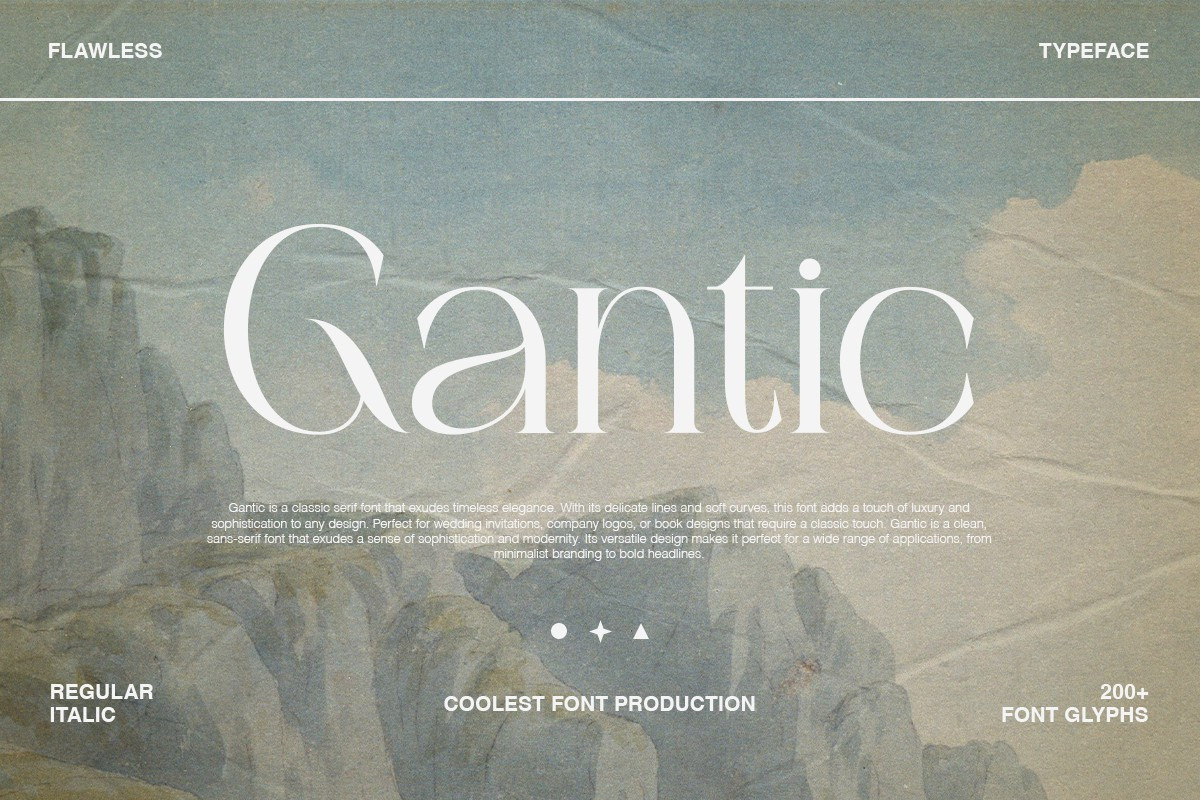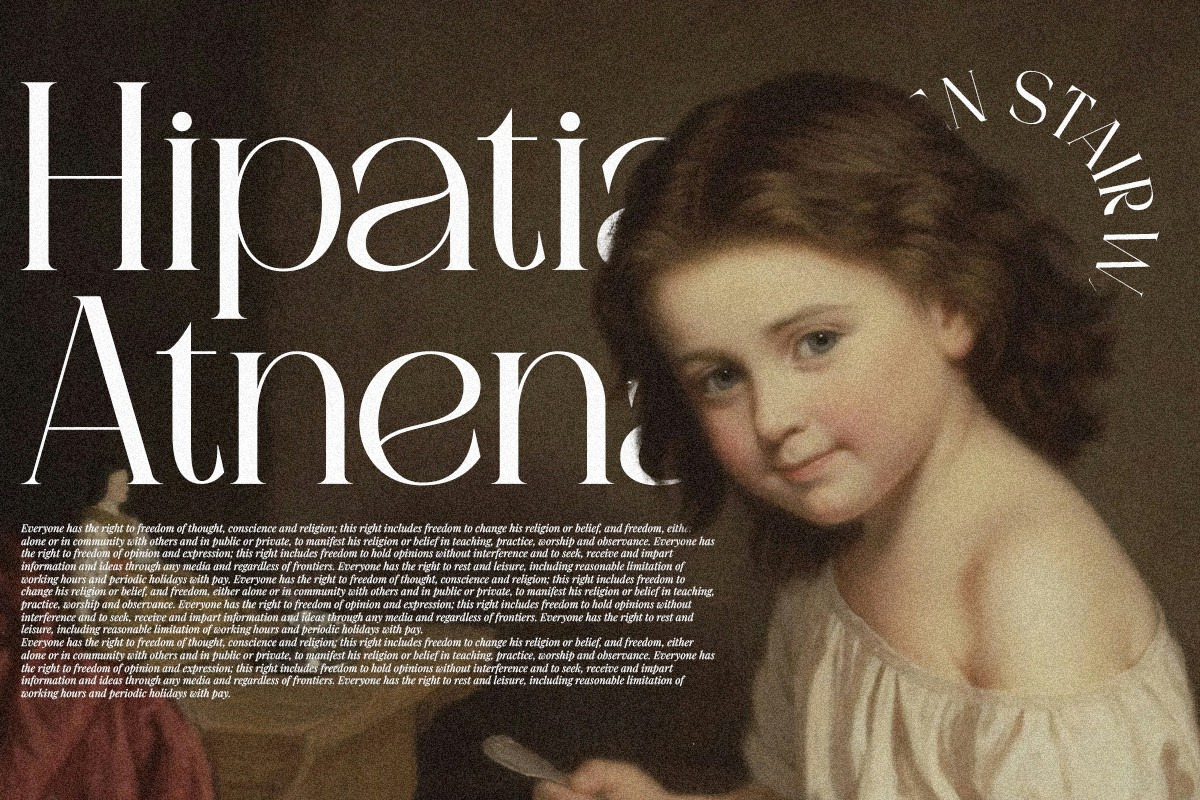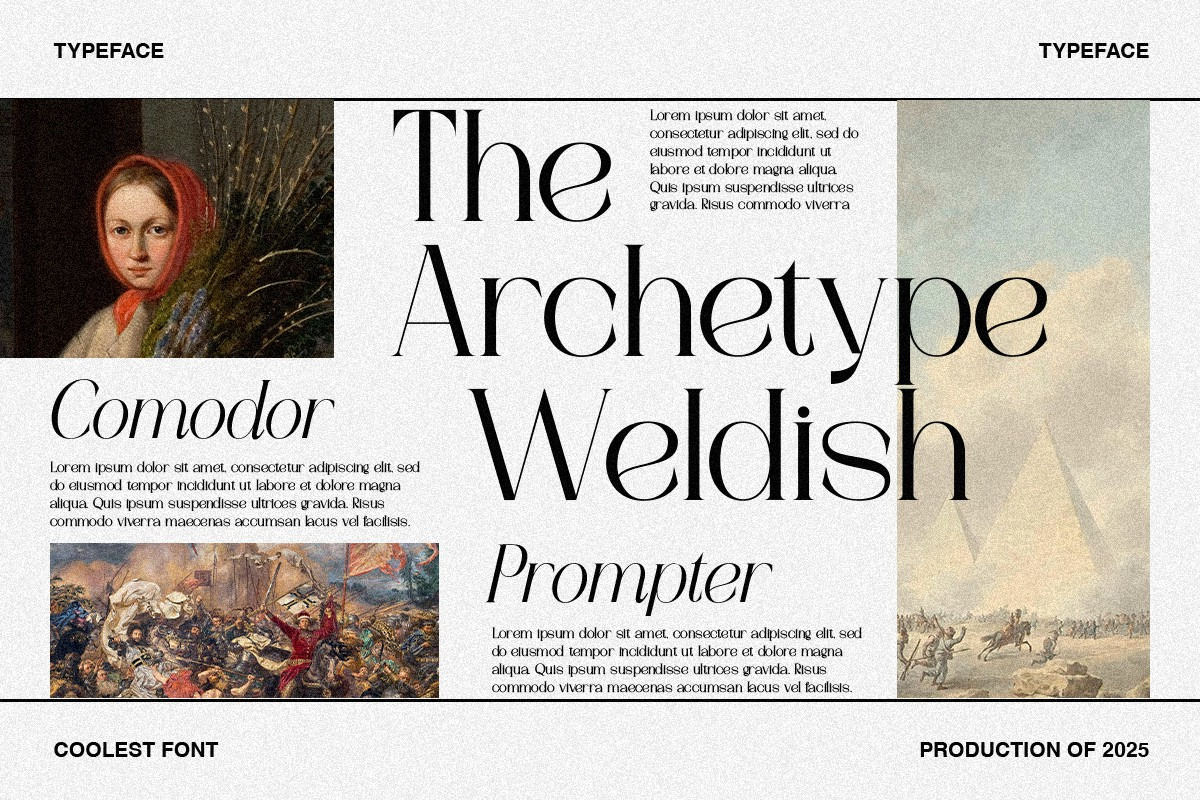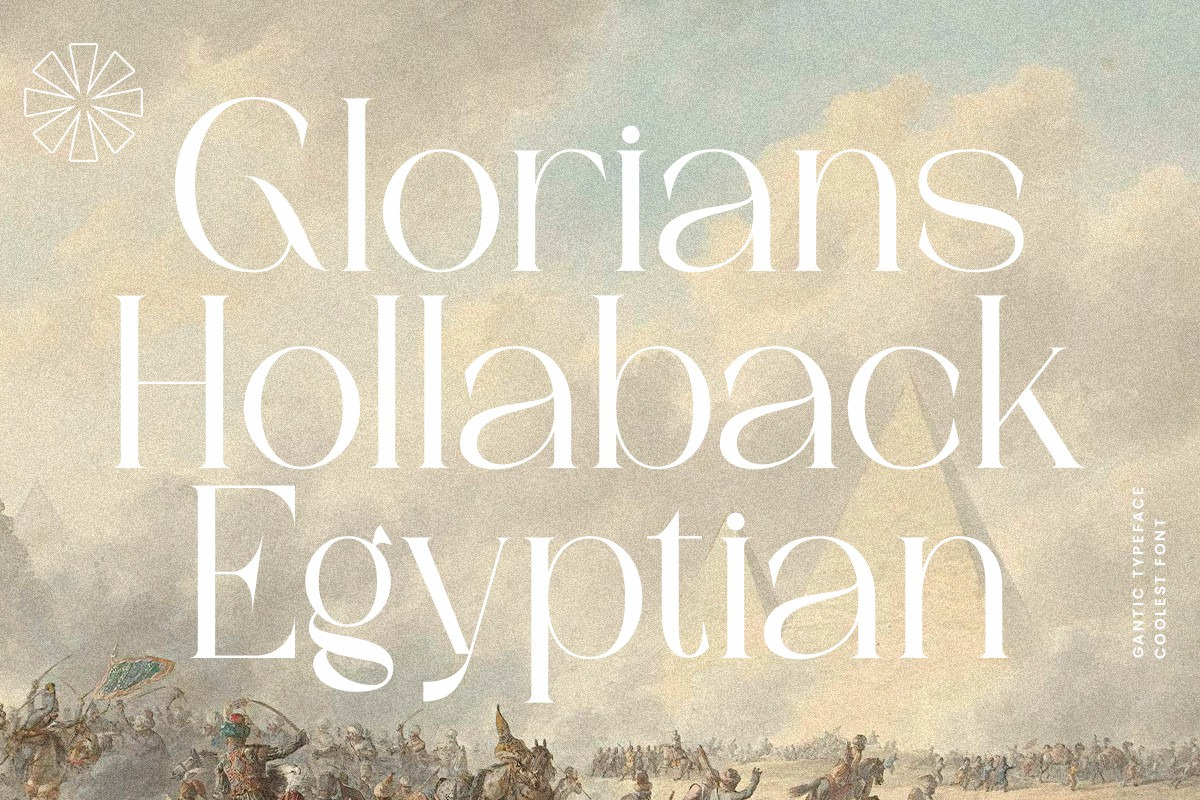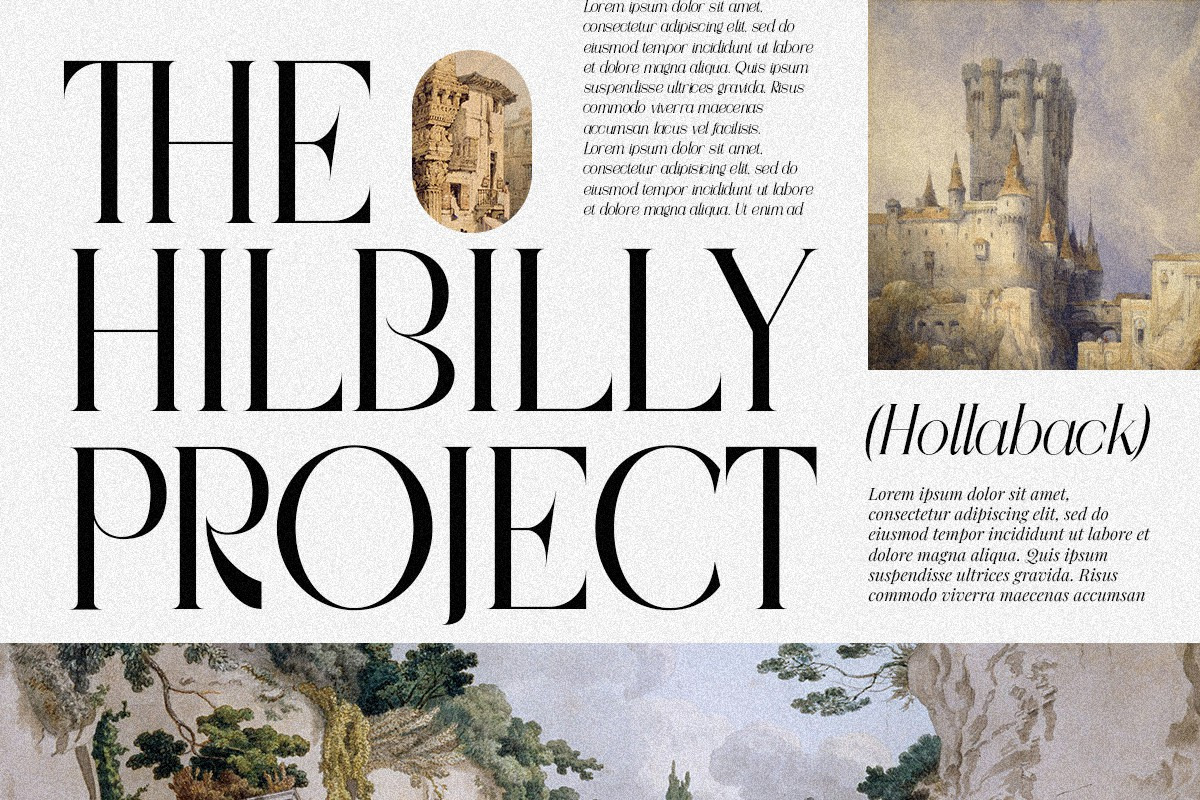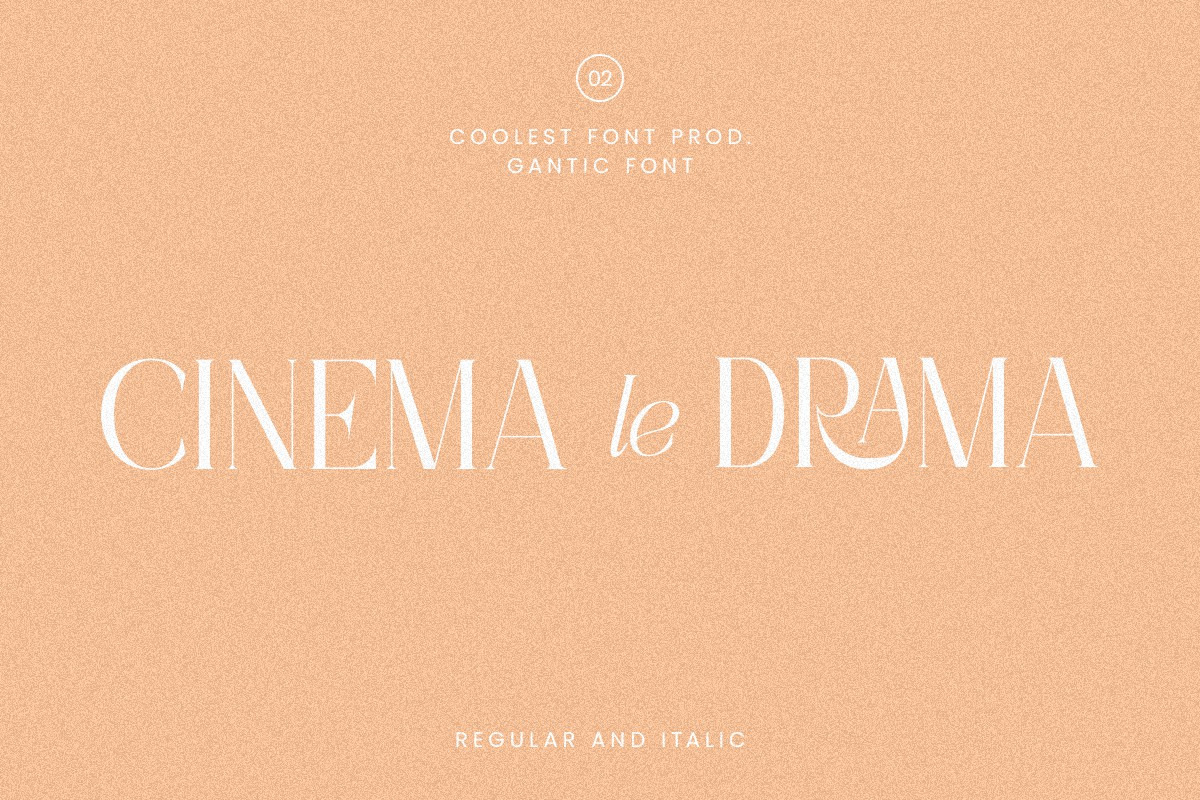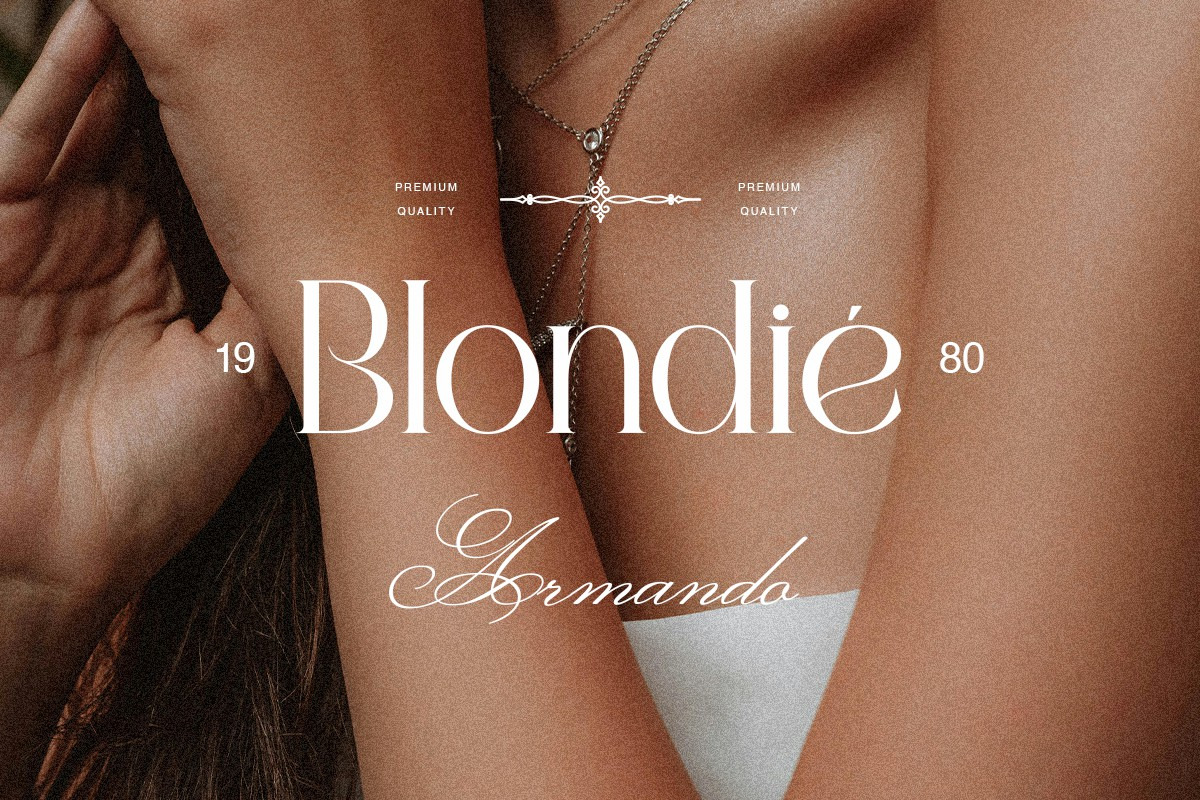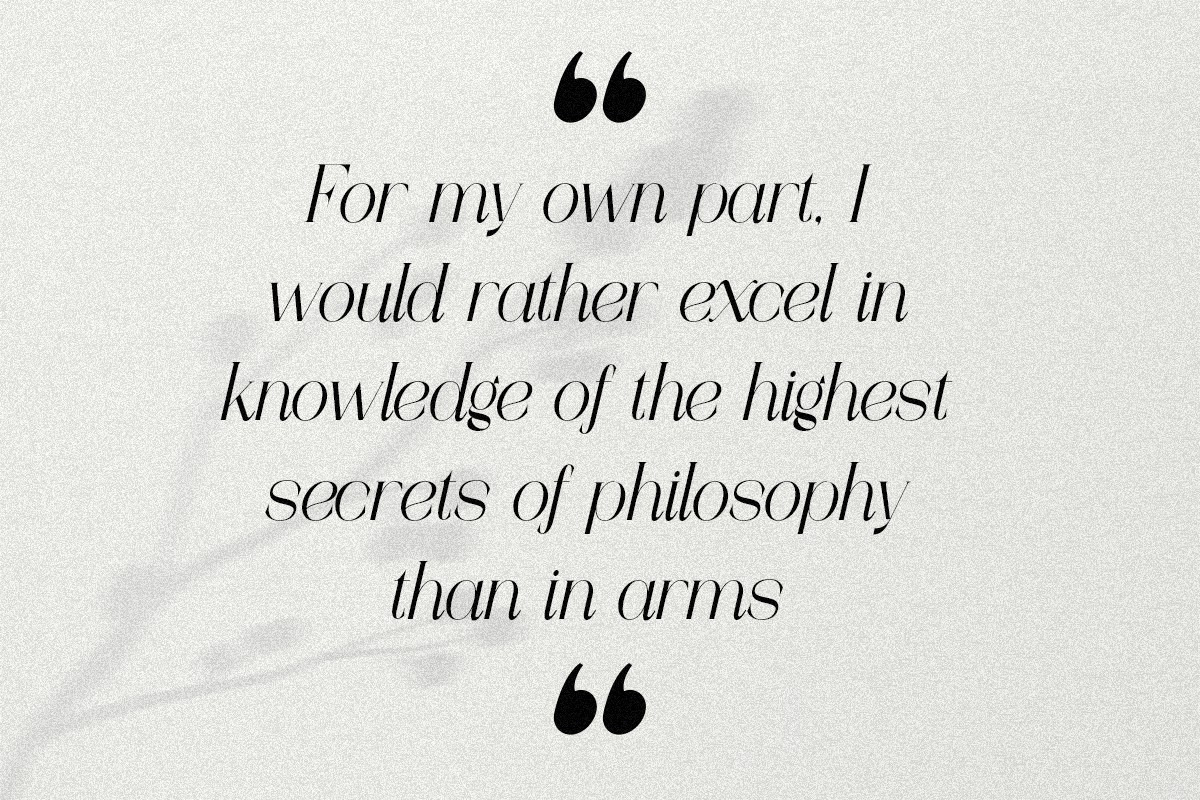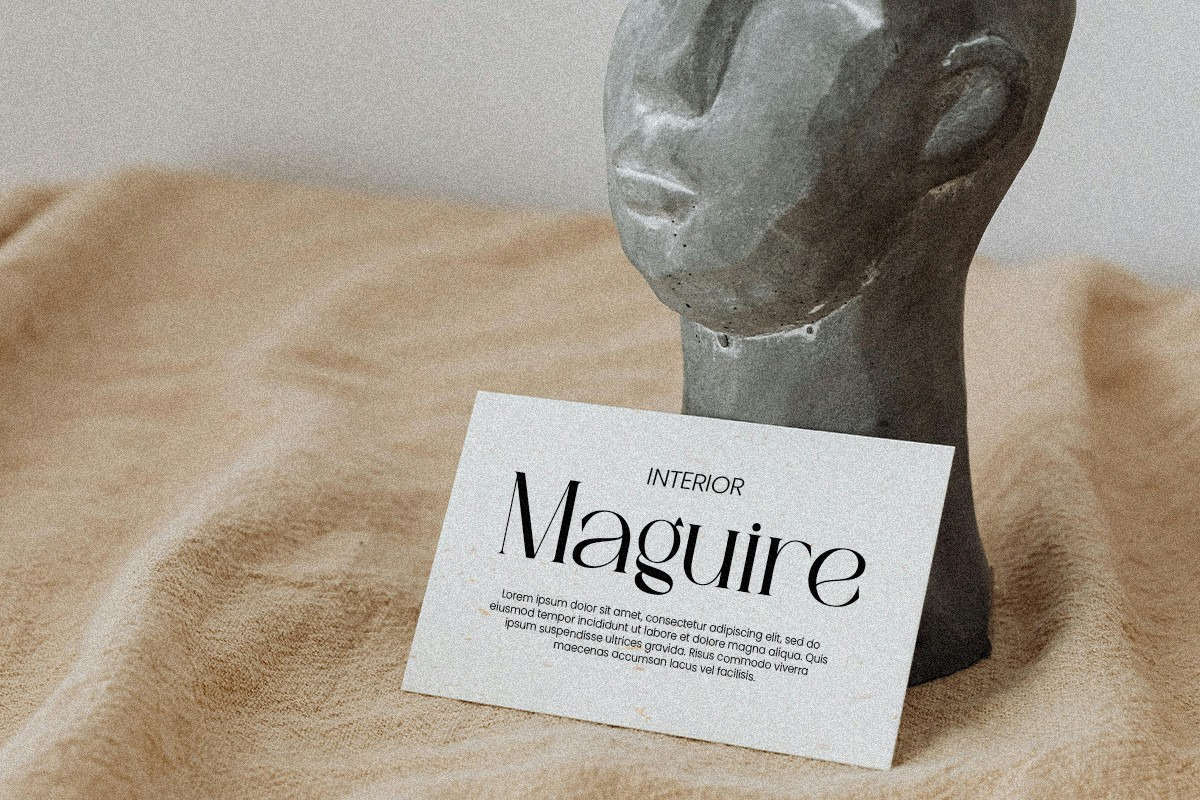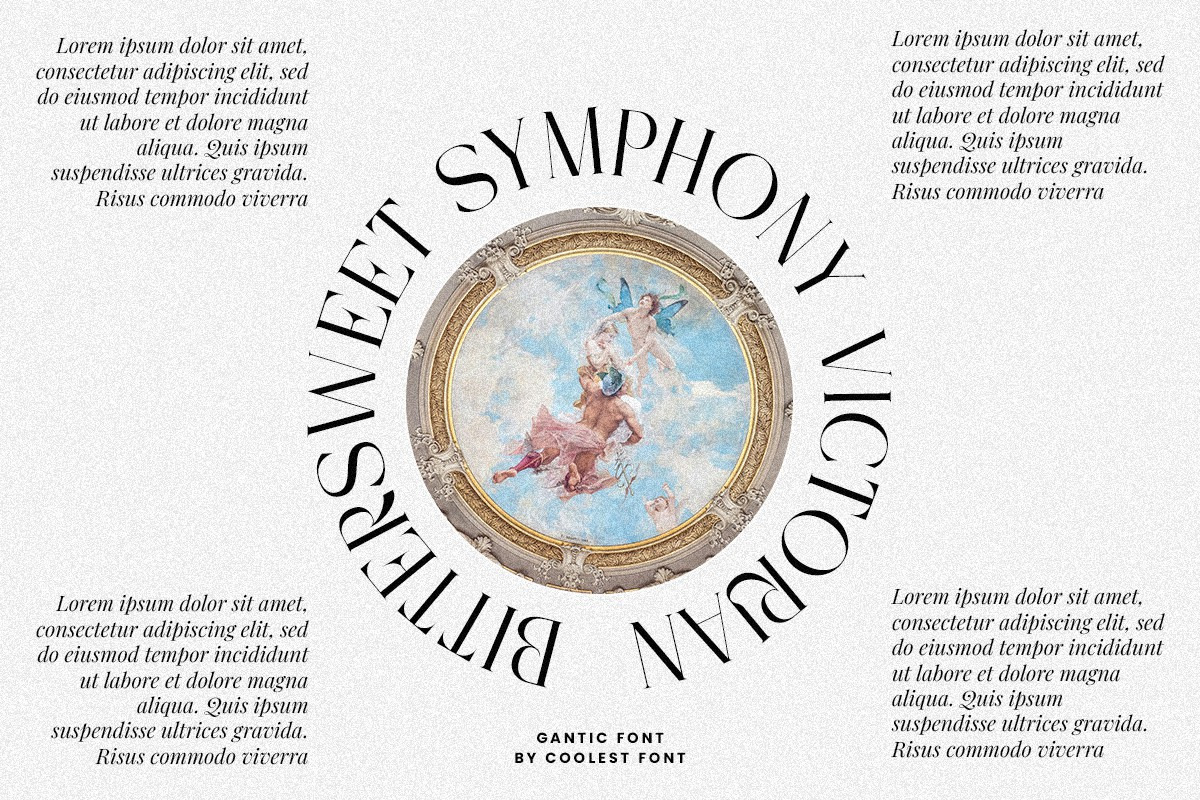
Gantic Font – Modern Serif Font
Gantic Font – Modern Serif Font | Elegant Typography for Logos, Branding & Editorial Design
Elevate your design projects with Gantic Font, a modern serif typeface that combines elegance and versatility. Perfect for branding, editorial design, packaging, and more, Gantic Font offers a sleek and contemporary look that will make your work stand out.
- Modern Serif Design: Clean lines and refined curves for a sophisticated aesthetic.
- Multilingual Support: Includes a wide range of characters for global use.
- Versatile Usage: Ideal for logos, headlines, invitations, and body text.
Why Choose Gantic Font? Gantic Font is designed to bring a touch of modernity and professionalism to any project. Whether you're working on a high-end brand or a personal creative endeavor, this font will add a unique and polished touch to your designs.